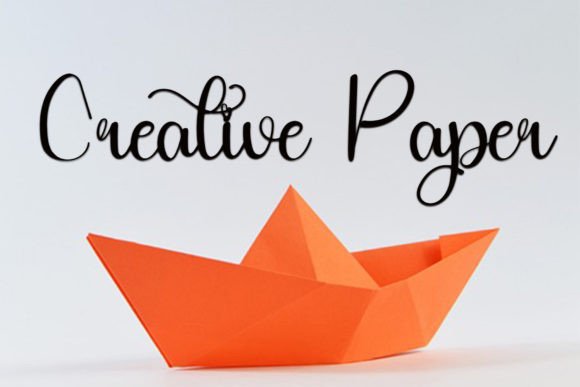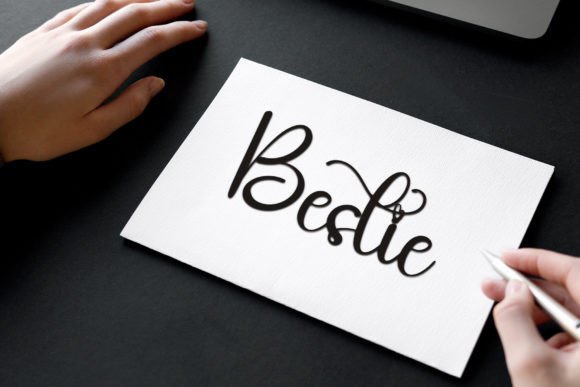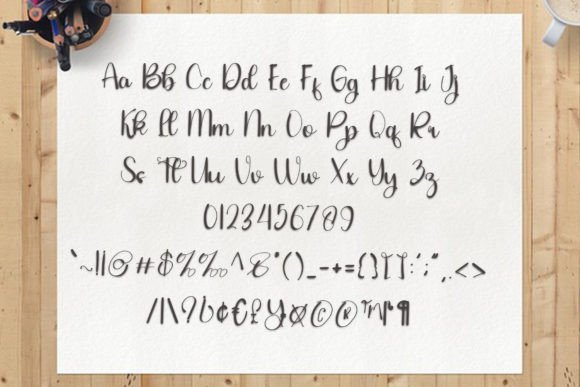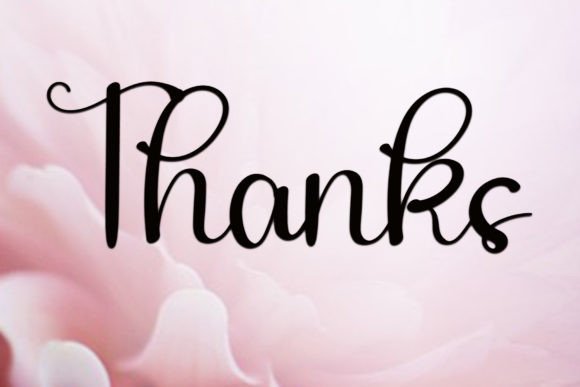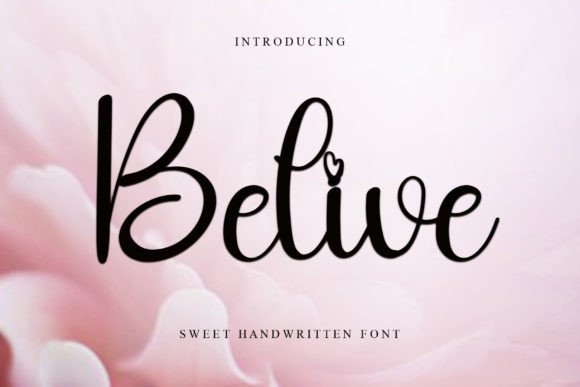
Discover the Elegance of Belive Font: Elevate Your Designs with Timeless Style
Are you on the hunt for a font that exudes elegance, sophistication, and a touch of timeless charm? Look no further than the Belive Font. This stunning handwritten font is meticulously crafted to bring an air of refinement to your projects, making it an ideal choice for designers and crafters alike. In this article, we’ll delve into the world of Belive Font, exploring its unique characteristics, and how it can be used to create breathtaking designs that leave a lasting impression.
The Essence of Belive Font
Belive Font is described as a neat and beautiful handwritten font, distinguished by an elegant touch that sets it apart from other fonts in its category. Its incredibly distinct and timeless style makes it perfect for a wide range of projects, from creative crafts to professional designs. Whether you’re working on a logo, a website, a poster, or any other visual material, Belive Font is sure to add a touch of sophistication and class.
What Makes Belive Font Stand Out?
So, what makes Belive Font so special? Here are a few key features that contribute to its unique charm:
- Elegant Touch: The font’s elegant touch gives it a refined and polished look, making it perfect for designs that require a high level of sophistication.
- Handwritten Style: The handwritten style of Belive Font adds a personal touch to your designs, making them more approachable and engaging.
- Timeless Appeal: Unlike trendy fonts that may quickly go out of style, Belive Font boasts a timeless appeal that ensures your designs will remain relevant for years to come.
- Versatility: Belive Font is incredibly versatile, making it suitable for a wide range of projects, from digital designs to print materials.
How to Use Belive Font in Your Designs
Now that we’ve explored the unique characteristics of Belive Font, let’s discuss how to incorporate it into your designs. Here are a few ideas to get you started:
- Logos and Branding: Use Belive Font to create stunning logos and branding materials that exude elegance and sophistication.
- Website Design: Add a touch of refinement to your website design with Belive Font, perfect for headings, titles, and other prominent text elements.
- Print Materials: Use Belive Font in your print materials, such as brochures, flyers, and posters, to create visually appealing and effective designs.
- Crafting and DIY Projects: Belive Font is also perfect for crafters and DIY enthusiasts, adding a personal touch to handmade cards, scrapbooking, and other creative projects.
Tips for Getting the Most Out of Belive Font
To ensure you get the most out of Belive Font, here are a few tips to keep in mind:
- Experiment with Different Sizes: Belive Font looks great in various sizes, so don’t be afraid to experiment to find the perfect fit for your design.
- Pair it with Other Fonts: Combine Belive Font with other fonts to create visually appealing contrast and add depth to your designs.
- Pay Attention to Kerning: Make sure to adjust the kerning to ensure the font looks balanced and harmonious.
In conclusion, Belive Font is a beautiful and elegant handwritten font that can elevate your designs to new heights. Its timeless style, versatility, and unique characteristics make it an excellent choice for designers and crafters alike. Whether you’re working on a professional project or a creative hobby, Belive Font is sure to inspire you to create spectacular designs that leave a lasting impression. So why wait? Fall in love with Belive Font and discover a world of elegant design possibilities!